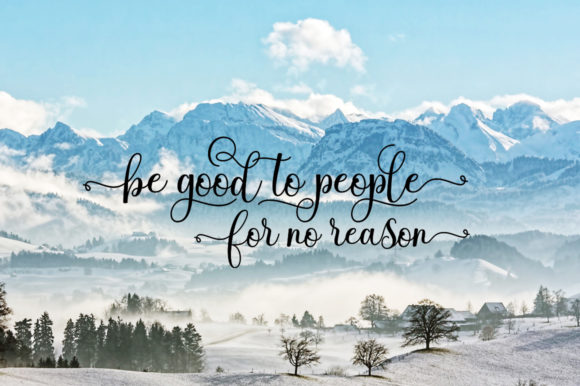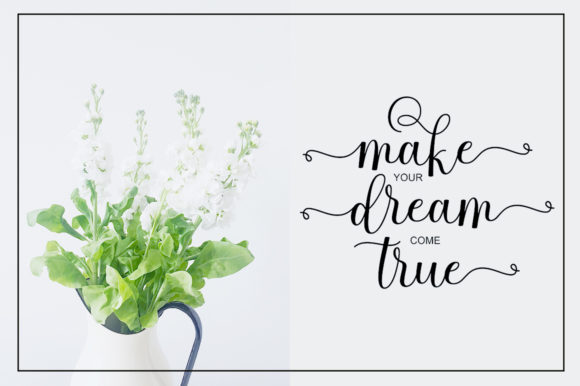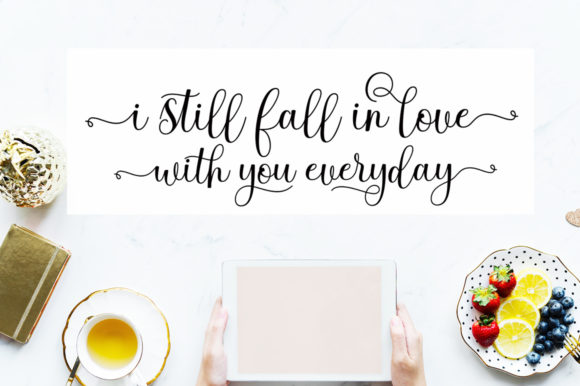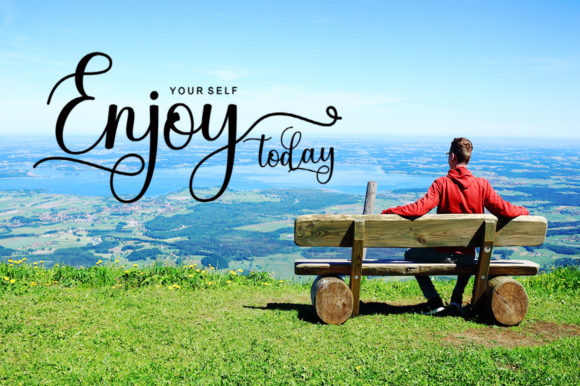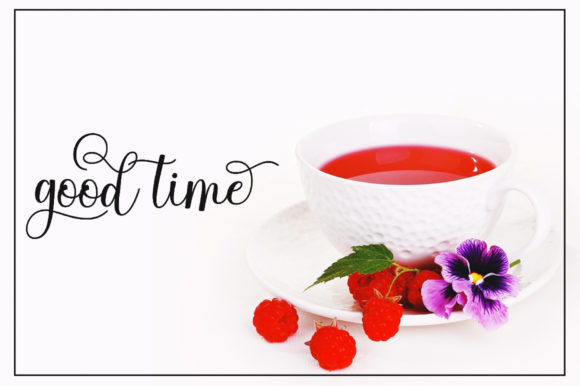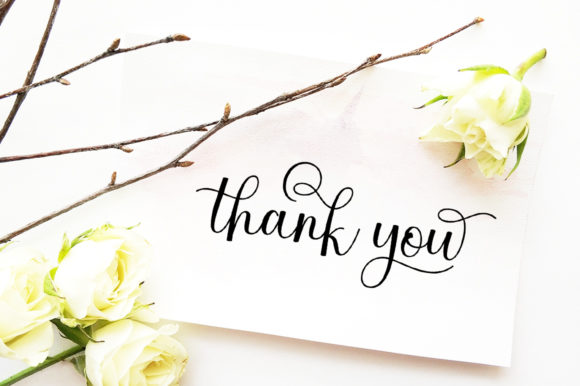
Southam Font
About Southam Font
The Southam is a modern script font. It has an irregular baseline which will give your design an elegant style.
It looks beautiful on thank you cards, t-shirts, logos, quotes, greeting cards, business cards, and more.